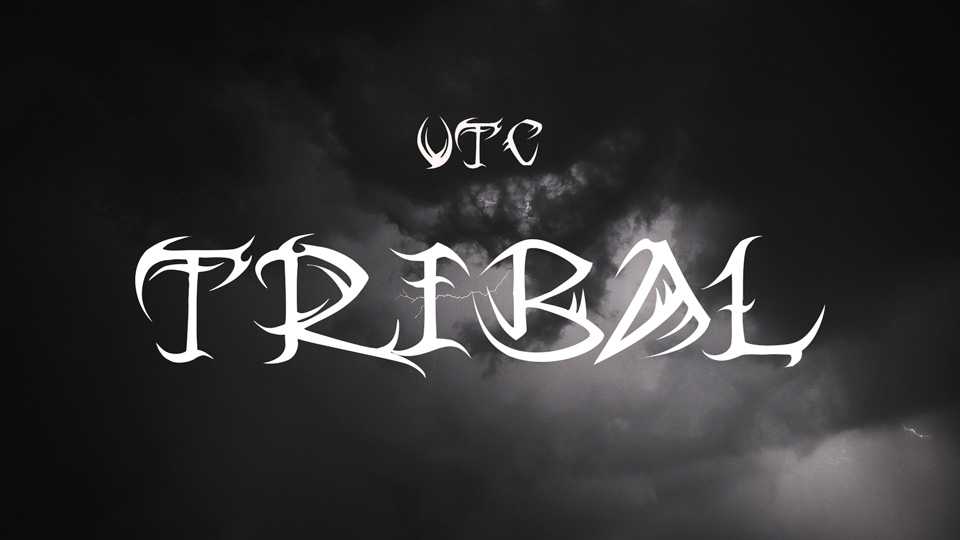
Download VTC Tribal font, an expressive handmade display typeface. This is the perfect attention-grabber for your posters, logos, apparel, album artworks.
Designer: WolfBainX